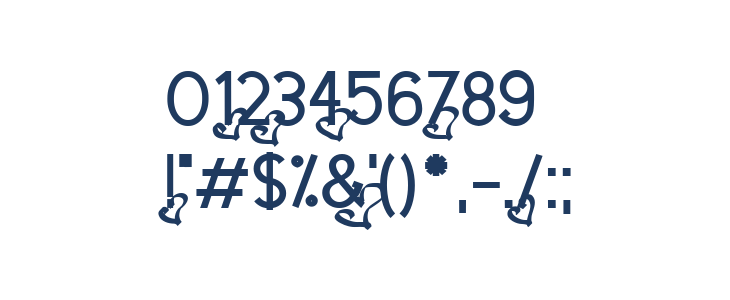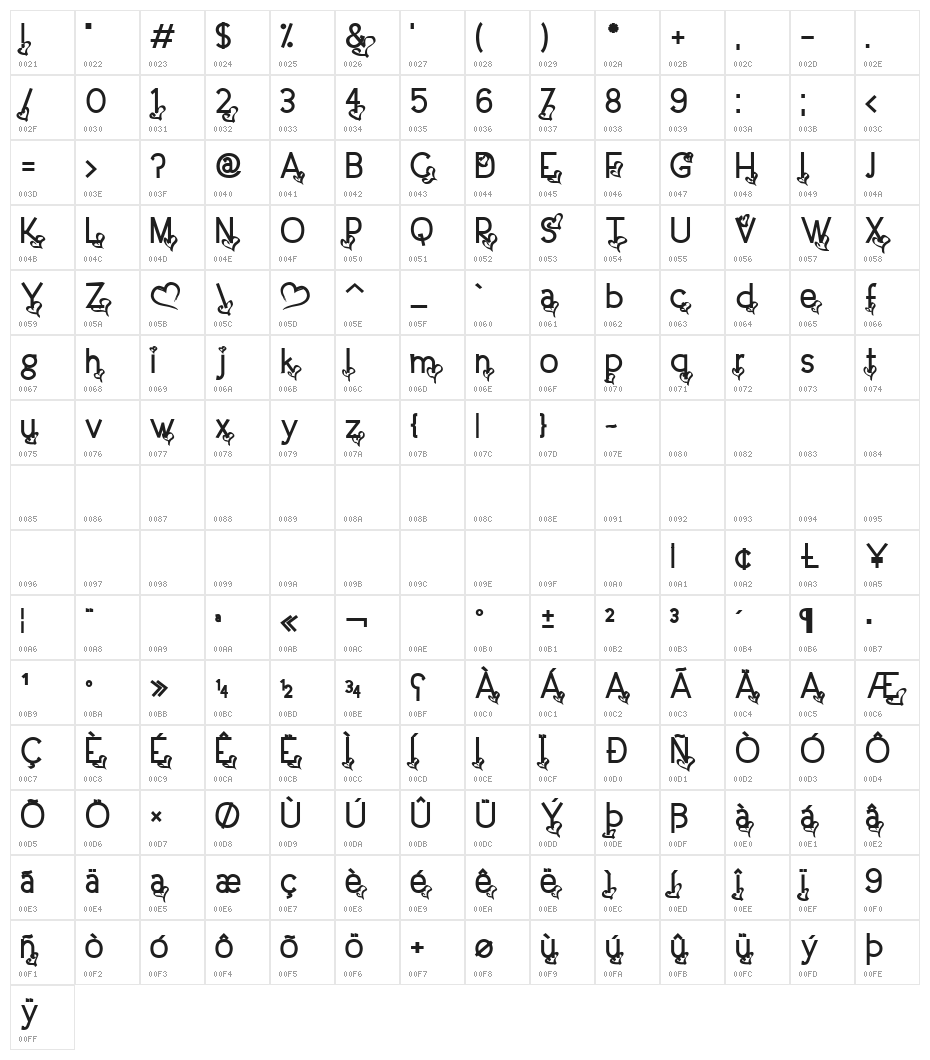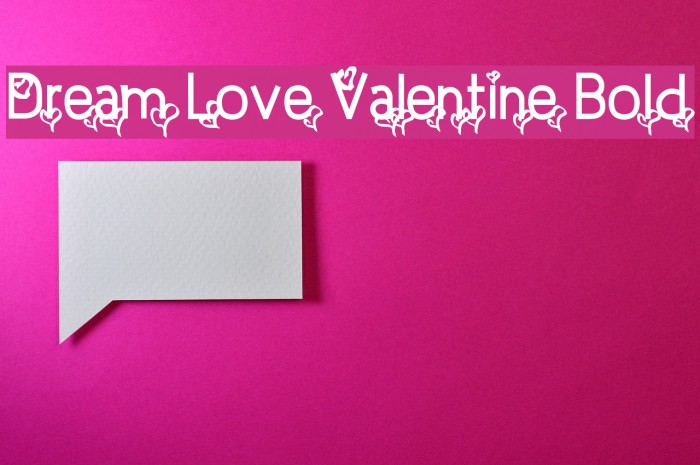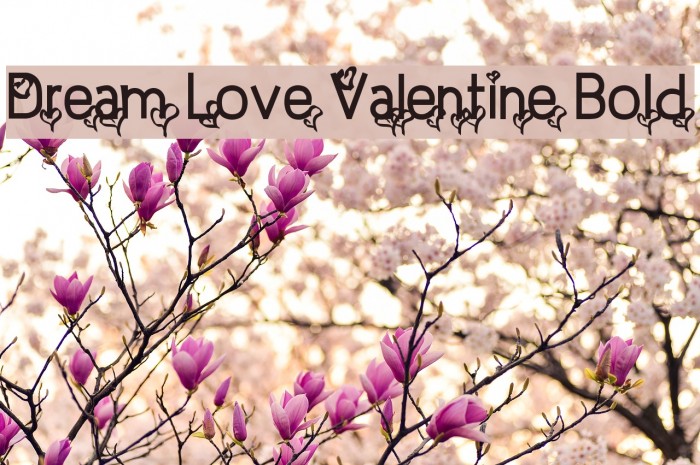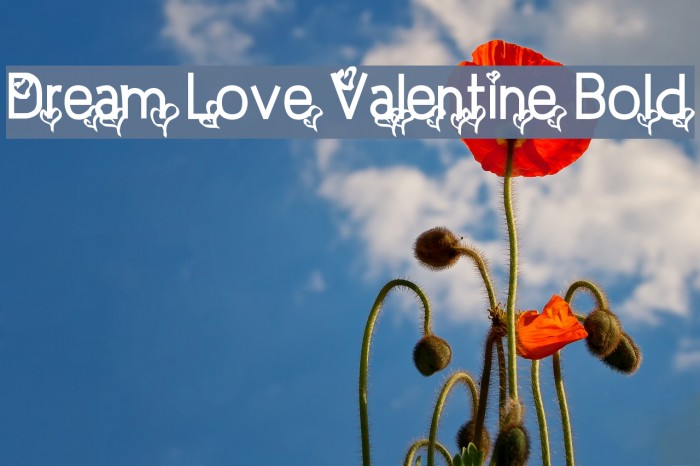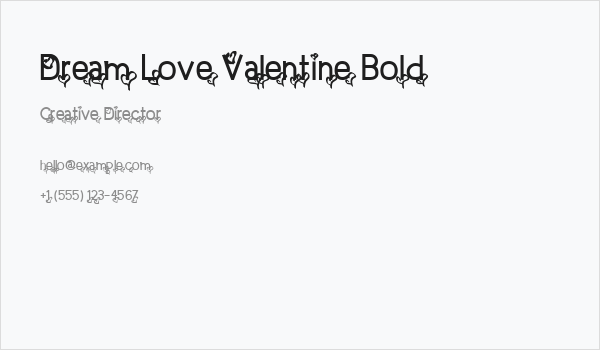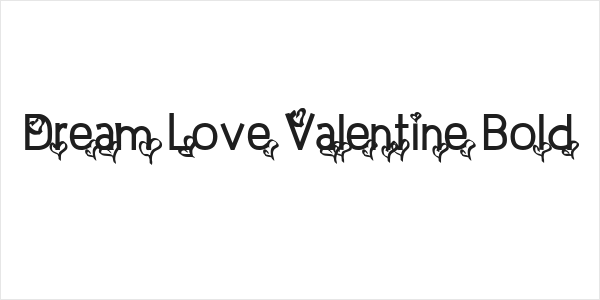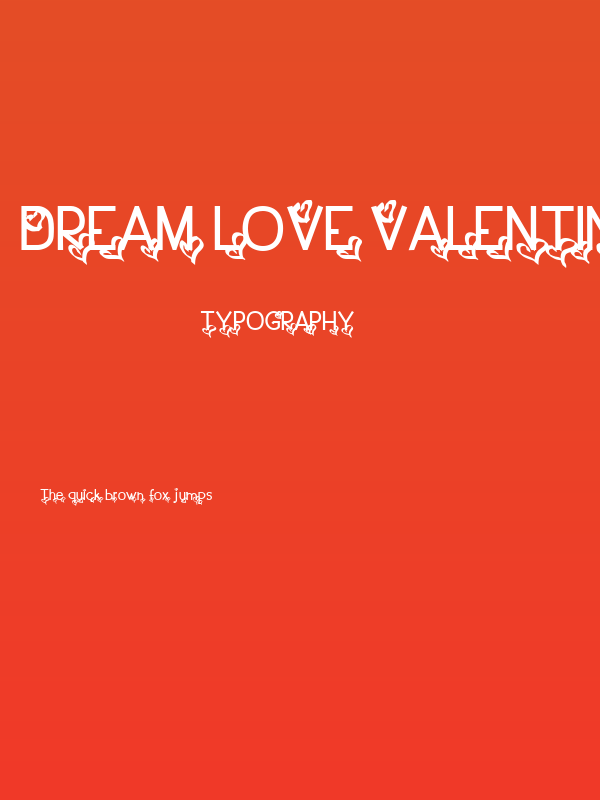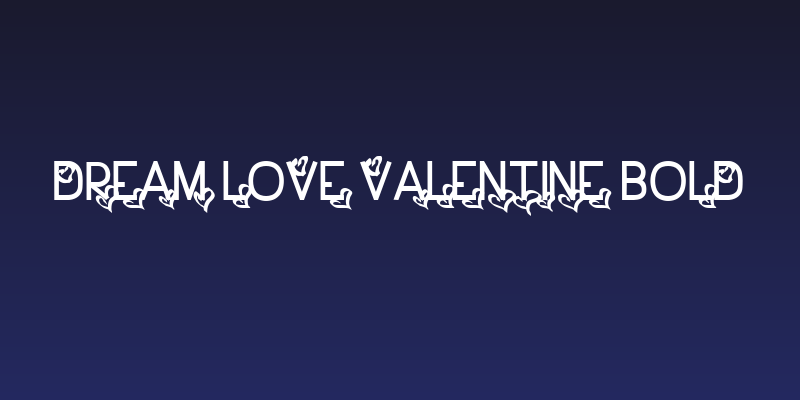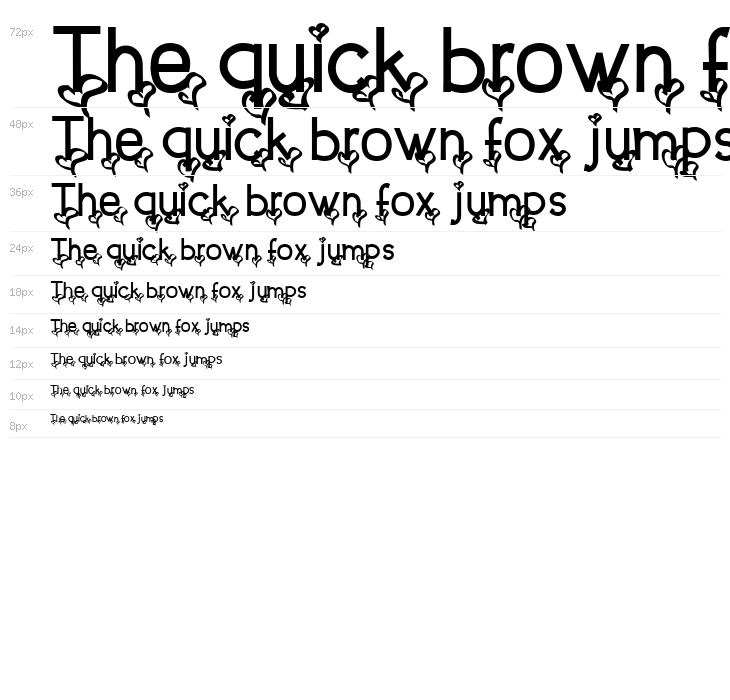
Dream Love Valentine Bold Font
Dream Love Valentine Bold Description
This playful and decorative font features heart-shaped embellishments integrated into each character, creating a whimsical and romantic aesthetic. The uppercase and lowercase letters, as well as numbers and special characters, all exhibit these heart motifs, making it ideal for love-themed projects. The bold strokes ensure readability while maintaining a fun and engaging style. Its unique design is perfect for capturing attention and conveying a sense of joy and affection.
| Proposed Projects | Ideal for Valentine's Day cards, wedding invitations, love-themed posters, and playful branding. |